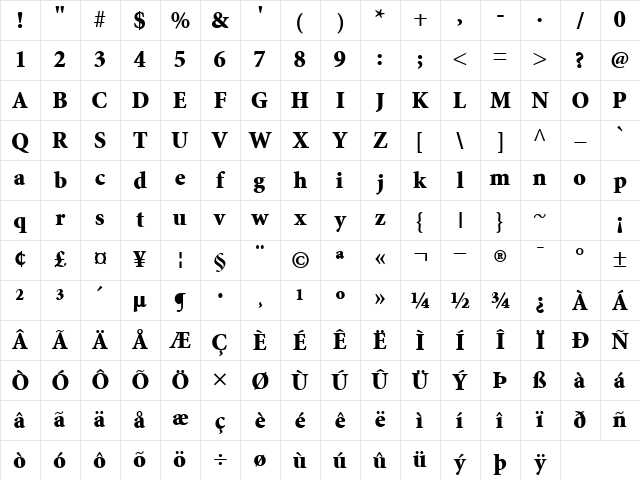
AtlantixBlackSSK Bold Free Font
AtlantixBlackSSK Bold
Design Context for AtlantixBlackSSK
AtlantixBlackSSK is a composed and adaptable typeface that performs quietly and consistently across a wide range of design contexts. Its bold stroke weight gives it real presence on the page.